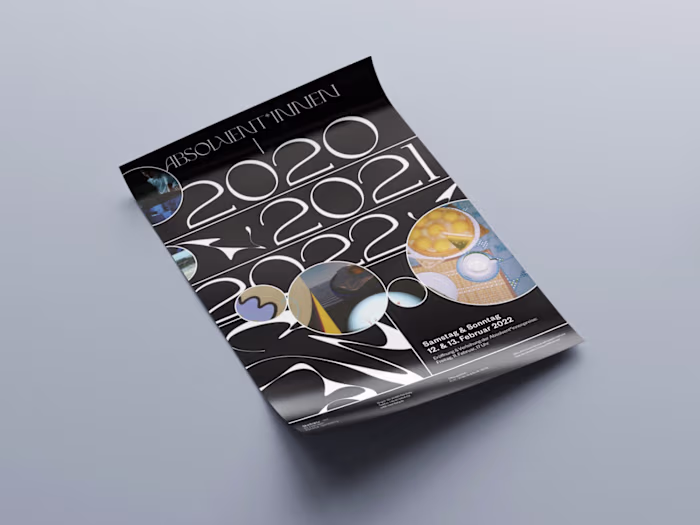
Typeface Design: BM Erkin by Murathan Biliktu
Typeface Design: BM Erkin
Murathan Biliktu
- Drove
• Drove, a Dutch electronic group, released their debut EP Dusk, with Martin Garrix’s Stmpd Rcrds on board. The album, which has six tracks, was published on January 8, 2021. It was followed up by another EP, Dawn, and both EP records were then combined as one record album named Dusk till Dawn.
Drove uses BM Erkin throughout their artwork, from social media posts and album covers to the music videos. Find more here.
Drove-Dawn album cover art
- KAI (开) EXO
• Kai From Exo used BM Erkin for his own single debut music video called Kai:Film.“Kai (stylized as KAI (开)) is the debut eponymous extended play by South Korean singer Kai. It was released on November 30, 2020 by SM Entertainment.
- Meyy
• Meyy is a Belgian artist who debuted in 2019. She collaborated with Lacuna Studios for the art direction of her latest single. BM Erkin by Murathan Biliktü is used as the main typeface for her single cover art and the title graphic for her music video.
- Fear City
• Fear City private screening poster designed by Alfie Wheatley is using Erkin Standart
My fonts have been used by everyone from famous musicians to craft beer pubs to KPOP idols, all across the world and in a variety of ways.